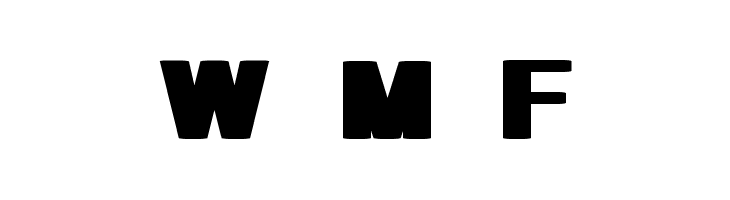
Geometric Font
A bold, geometric font with uniform strokes and a modern aesthetic.
ESRI Geometric Symbols Font
A geometric symbol font with outlined and filled shapes.
Neospace Circuit Expanded Font
A futuristic, circuit-inspired font with geometric lines and dot accents.
Fastup Bold Font
A bold, slanted font with a dynamic and energetic style.
Fastup Regular Font
A bold, italicized font with a dynamic and sporty style.
Fastup SC Regular Font
A bold, slanted font with thick strokes and a dynamic, energetic style.
geometric RegularShadow Font
A bold geometric font with a shadow effect, offering a three-dimensional appearance.
Formas geometricas 2 Font
A decorative geometric pattern font with diverse symmetrical motifs.
Fastup SC Bold Font
A bold, slanted font with a dynamic and energetic style.
Axial cut Regular Font
A modern, geometric font with clean lines and a structured appearance.
Rubik Font
A modern, geometric sans-serif font with a clean and professional look.
Geoplace Regular Font
A modern, geometric font with balanced strokes and clear readability.
Axial cut Bold Font
A bold, geometric font with sharp angles and a modern, industrial feel.
mingon Regular Font
A bold, geometric font with a modern, digital aesthetic.
Crosterian Font
A bold, geometric font with sharp edges and a strong presence.
GeometricFog Font
A bold, geometric font with a 3D shadow effect for a modern, striking appearance.
Banks Miles Single Line Font
A modern, geometric sans-serif font with clean lines and uniform stroke width.
GeometricSerif Font
A bold, geometric serif font with strong, angular serifs and a modern yet timeless feel.
Chainsaw Geometric Font